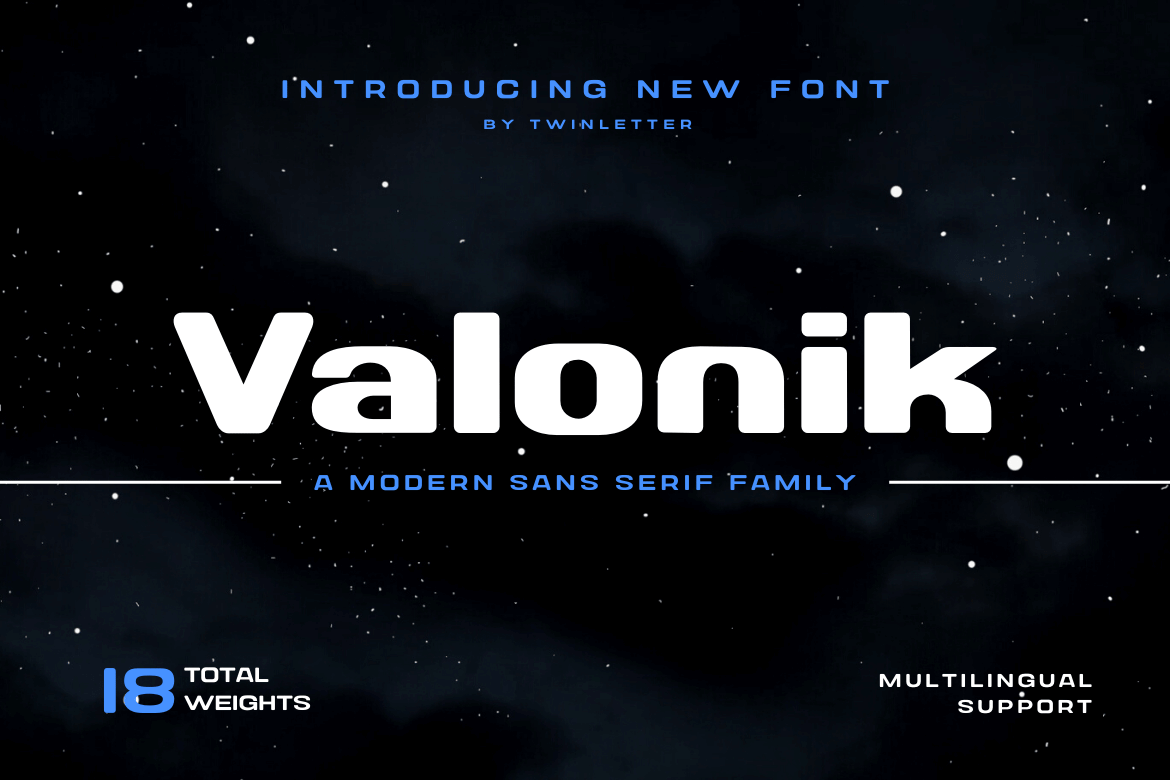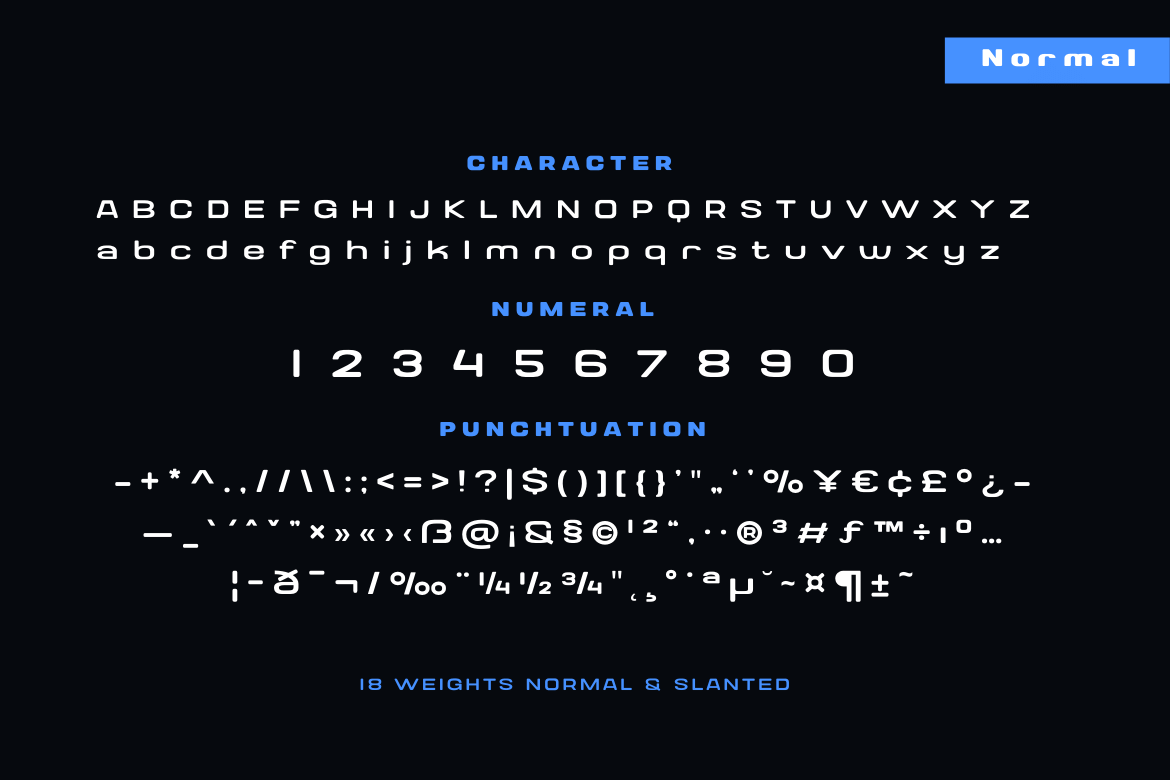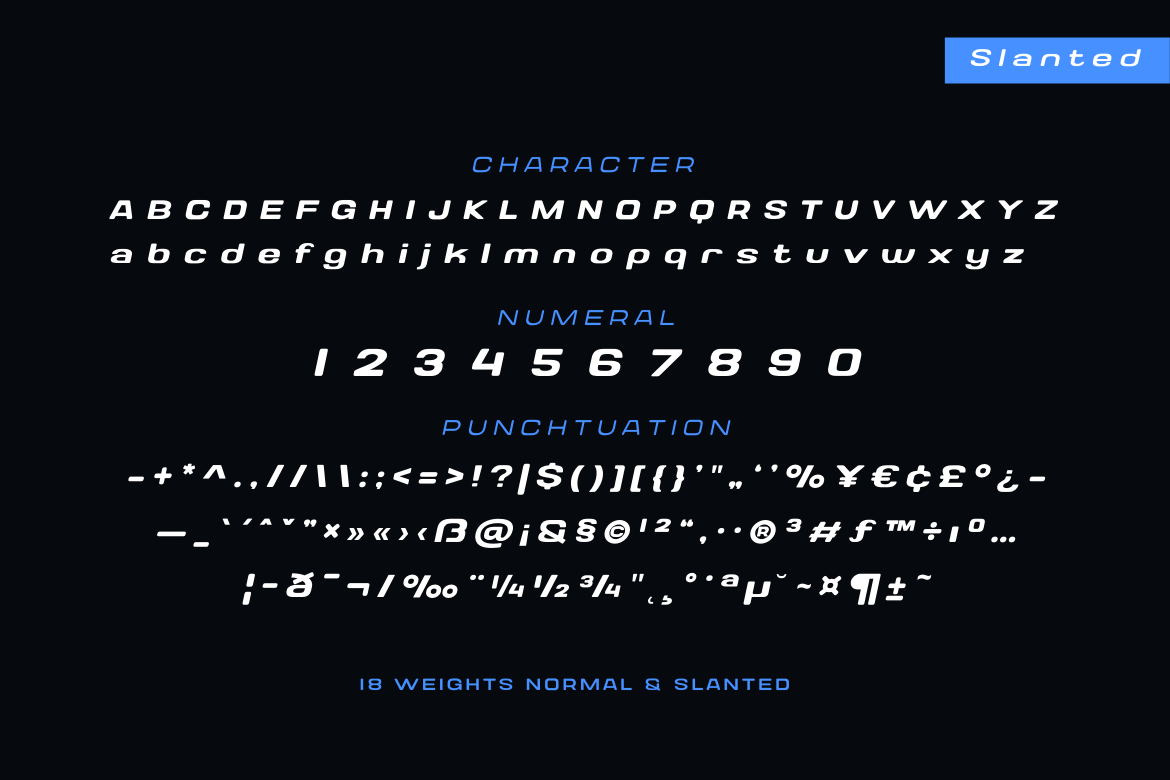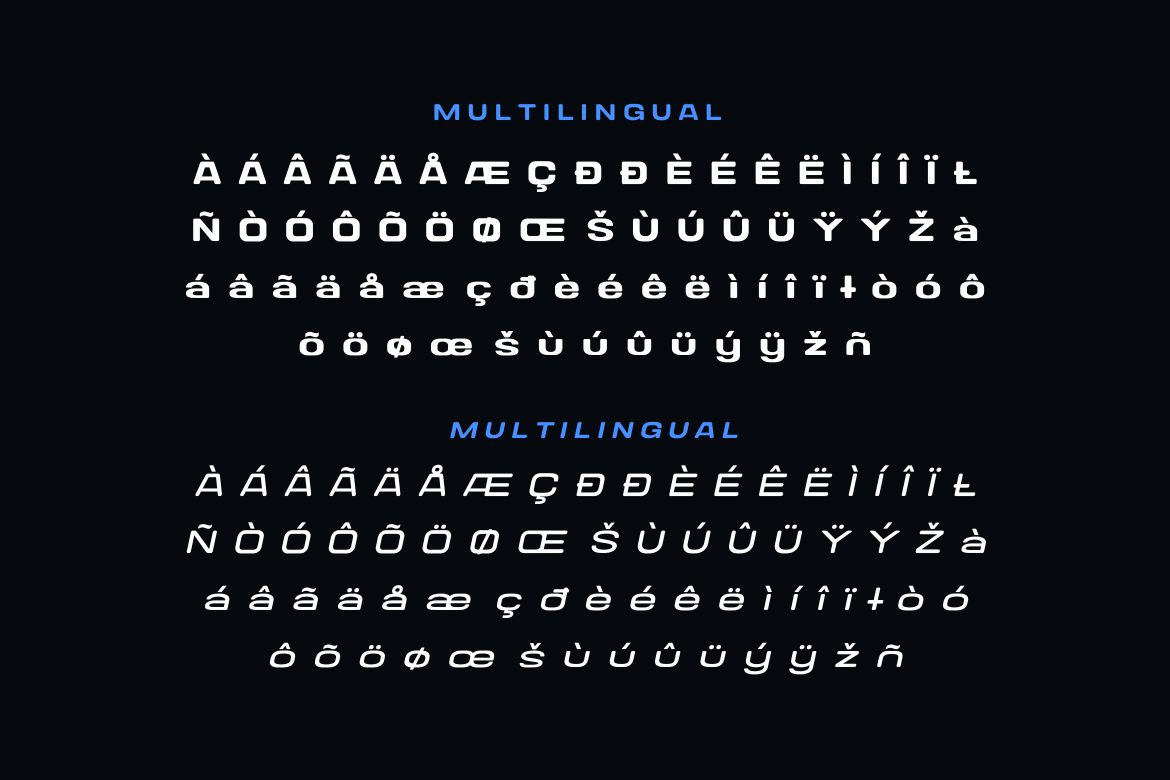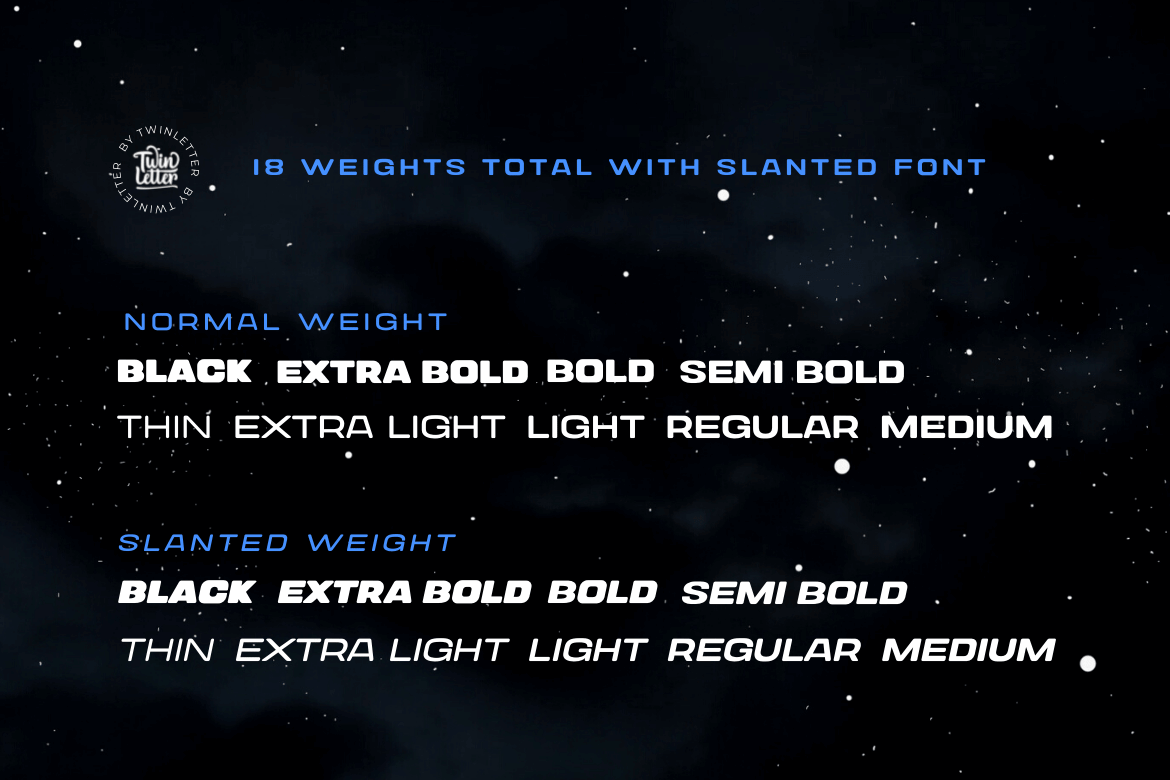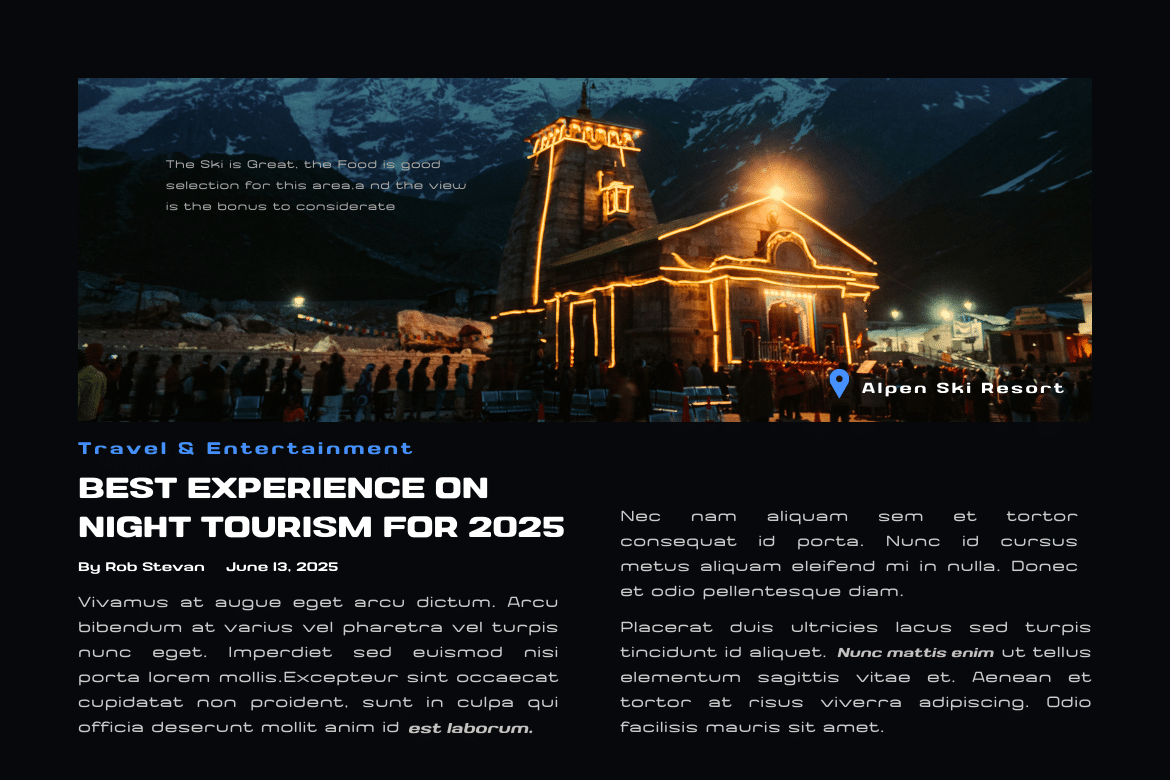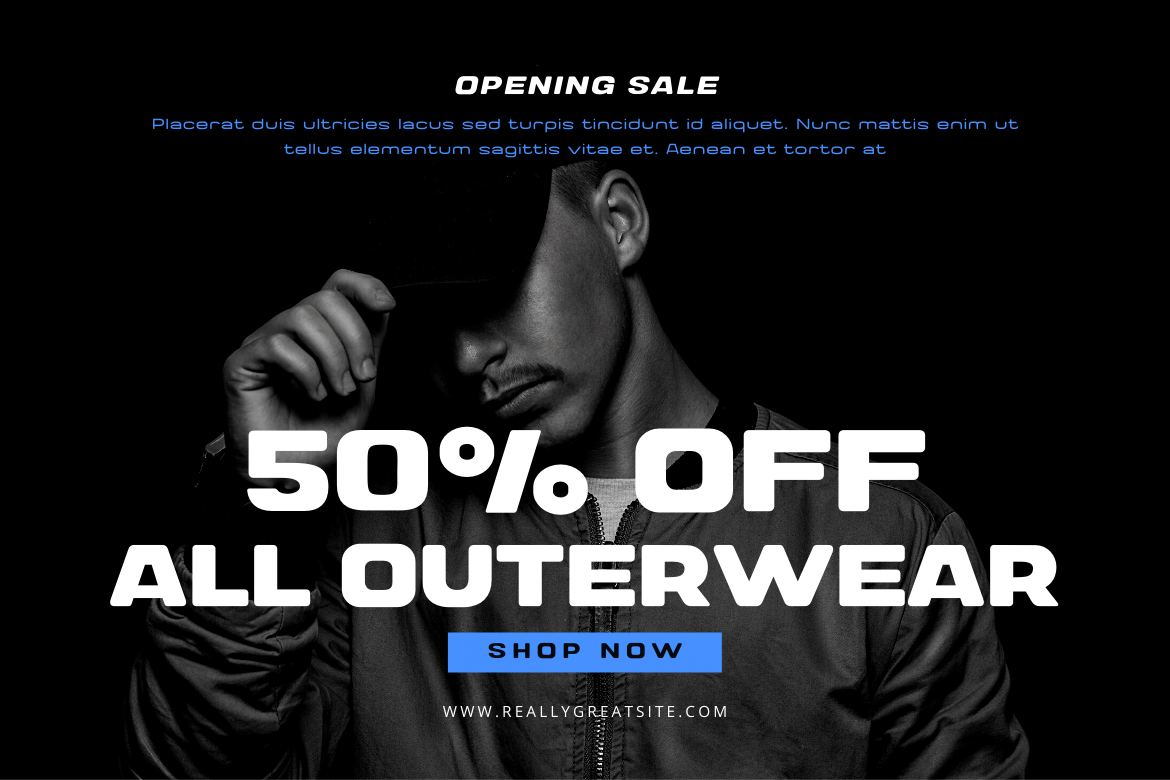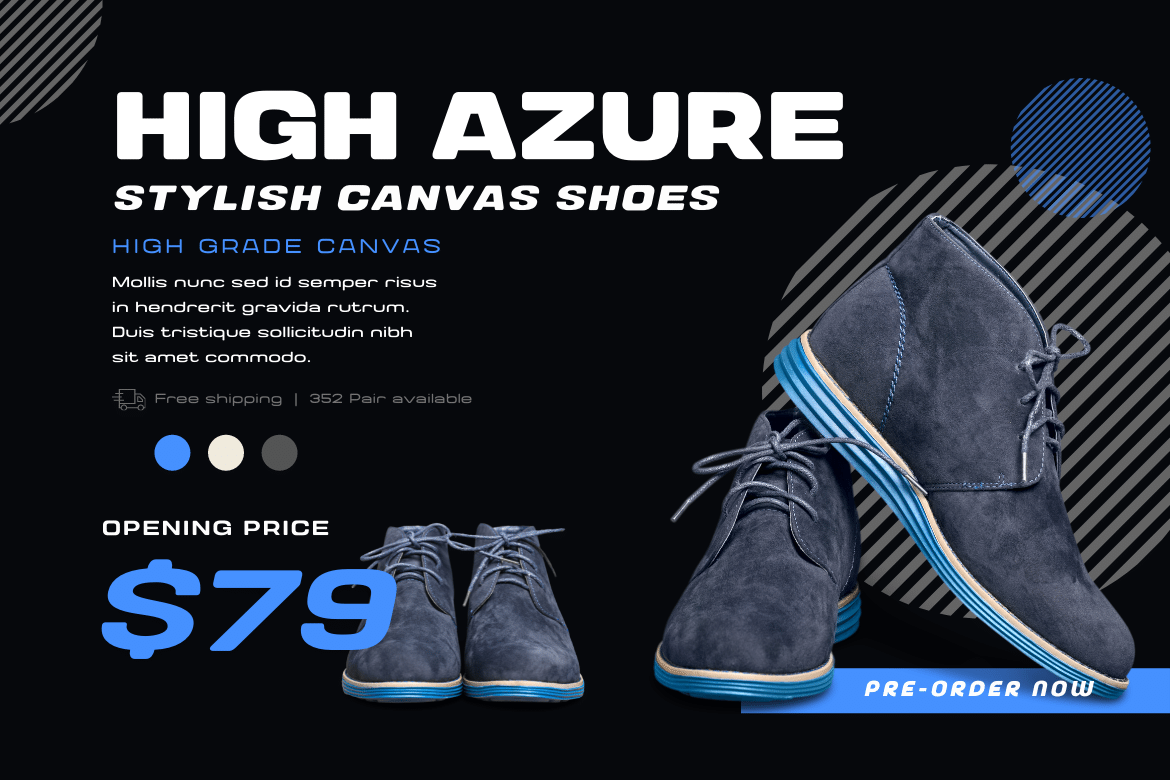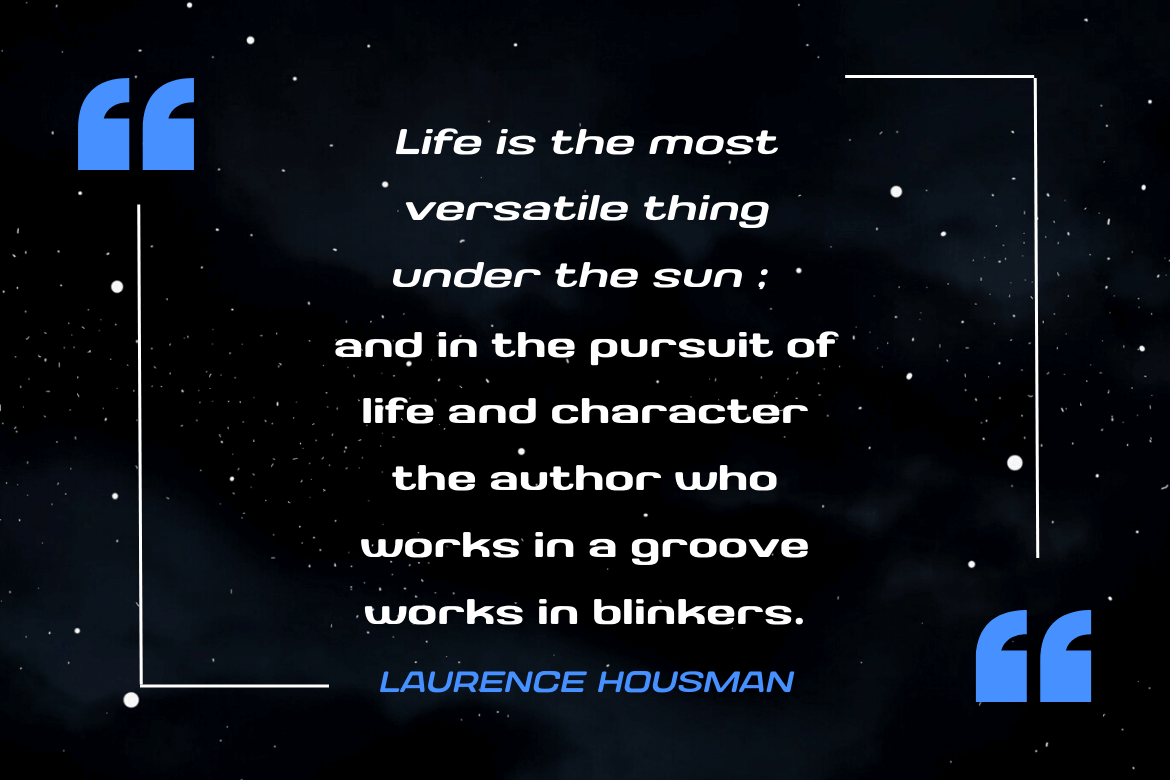
- San Serif
- Valonik
Valonik, our newest font family, is now available! We invite you to use this fancy font for your various design projects. This comprehensive collection includes 18 different styles, making them ideal for a variety of different uses. Each style is built from the ground up to optimize beauty and personality. Let this font create stunning graphics, banners, posters, and texts for you to enjoy.